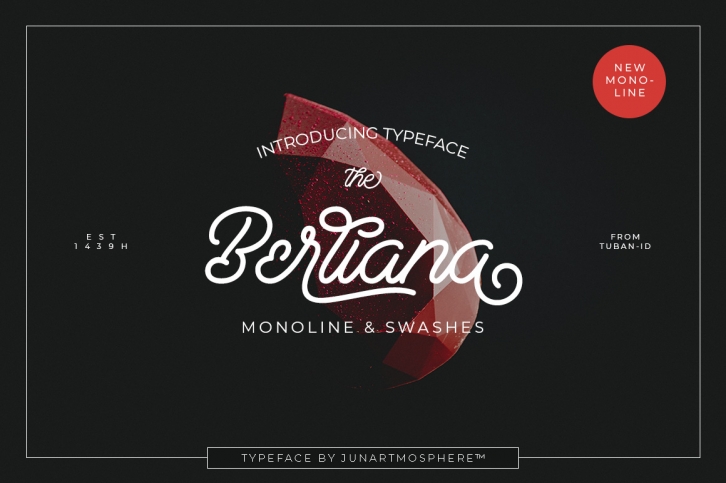
Berliana Monoline Extrass Logo is a gorgeous font that was realeased on August 12, 2018. The font can be used in many style contexts and design environments. Perfect for invitations, magazines, websites, logos, and more! It was designed by Junartmosphere and the file size is 21.19 MB. Thanks for checking out this font!